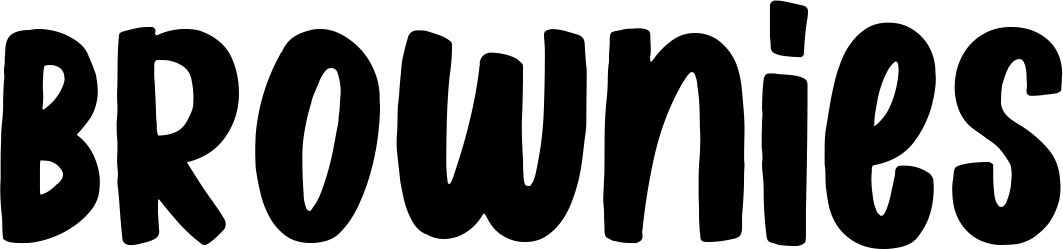
Brownies Font
If you are looking for a fun comic font that makes children happy as well, then the most suitable choice would be Brownies! It offers chunky bold characters that are cute, and curvy, and give a happy, mischievous feel, making it the best selection for your typography.
Mixed case alphabets, numbers, and punctuation are all available for Brownies. You can utilize the letterforms to achieve the design you have been imagining and it’s best for comics, cartoons, games, animations, and more.